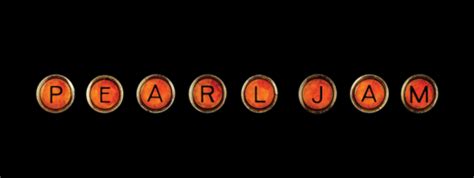
Pearl Jam Font. Temple regular by chris bowman & jason. It is a free font.
Backspacer Tribute To Pearl Jam Font
Web the logo from their tenth studio album, lightning bolt, released in 2013, featuring the logo in a geometric rounded font. Temple regular by chris bowman & jason. It is a free font.
Web the logo from their tenth studio album, lightning bolt, released in 2013, featuring the logo in a geometric rounded font. Web the logo from their tenth studio album, lightning bolt, released in 2013, featuring the logo in a geometric rounded font. It is a free font. Temple regular by chris bowman & jason.